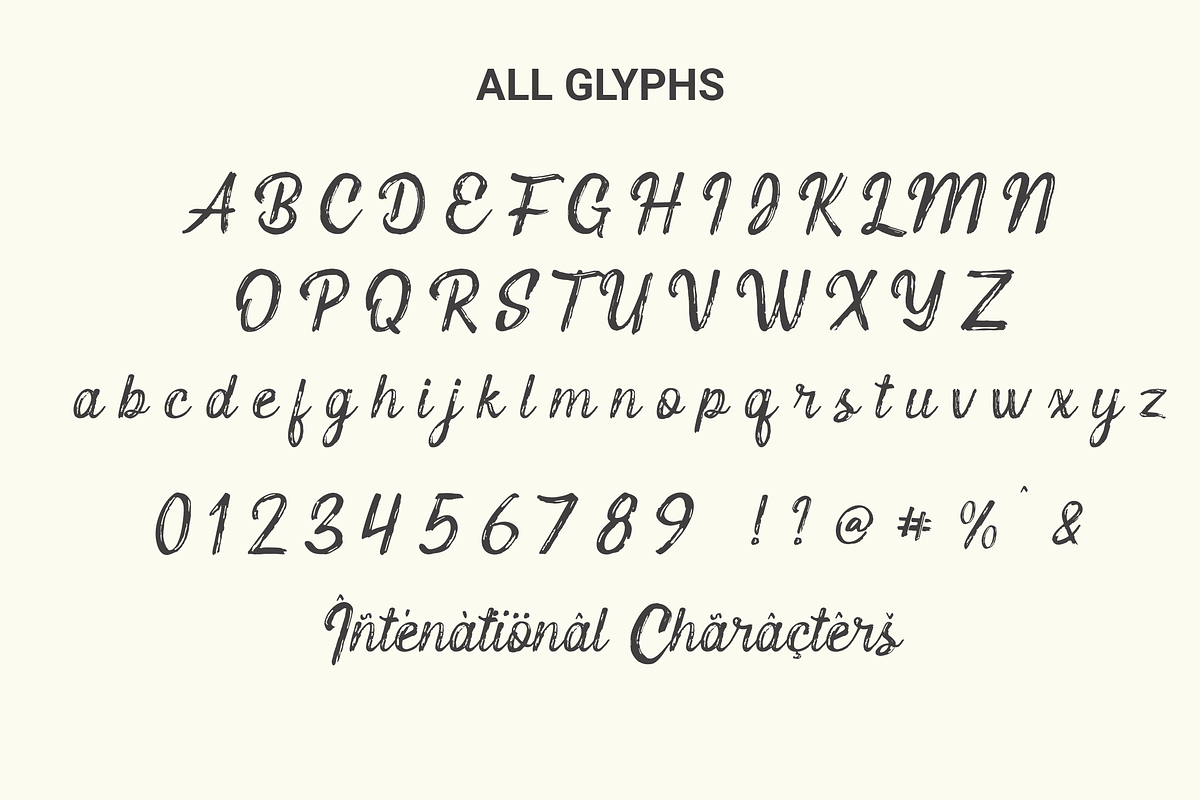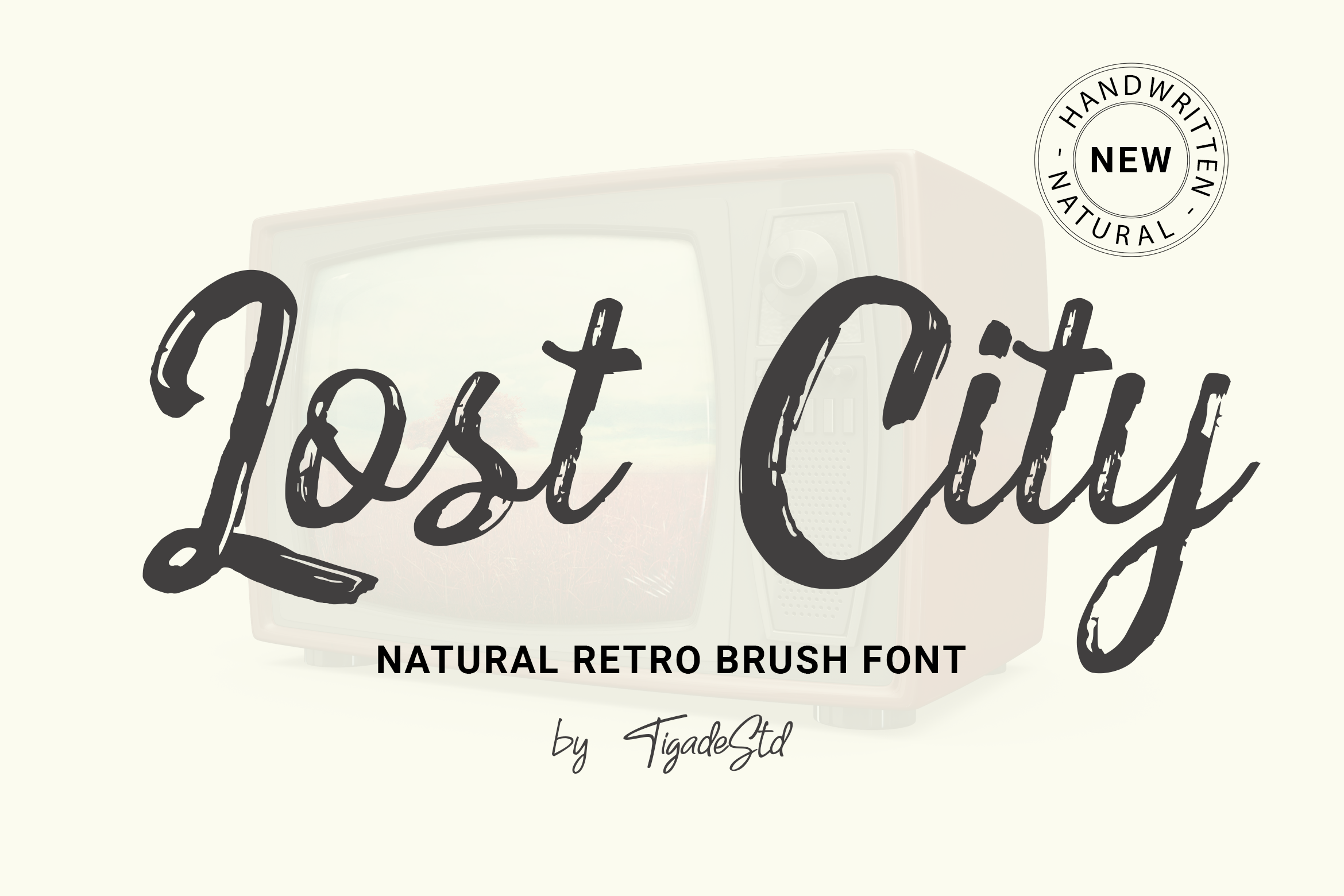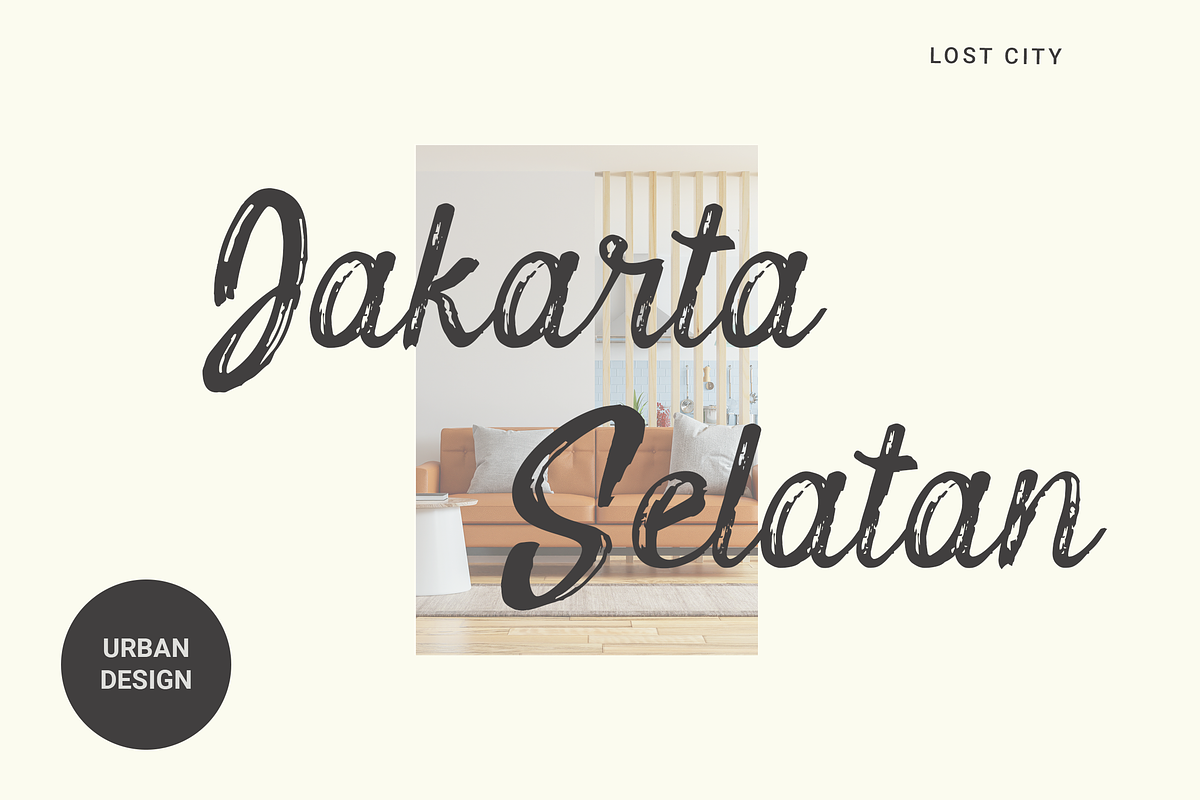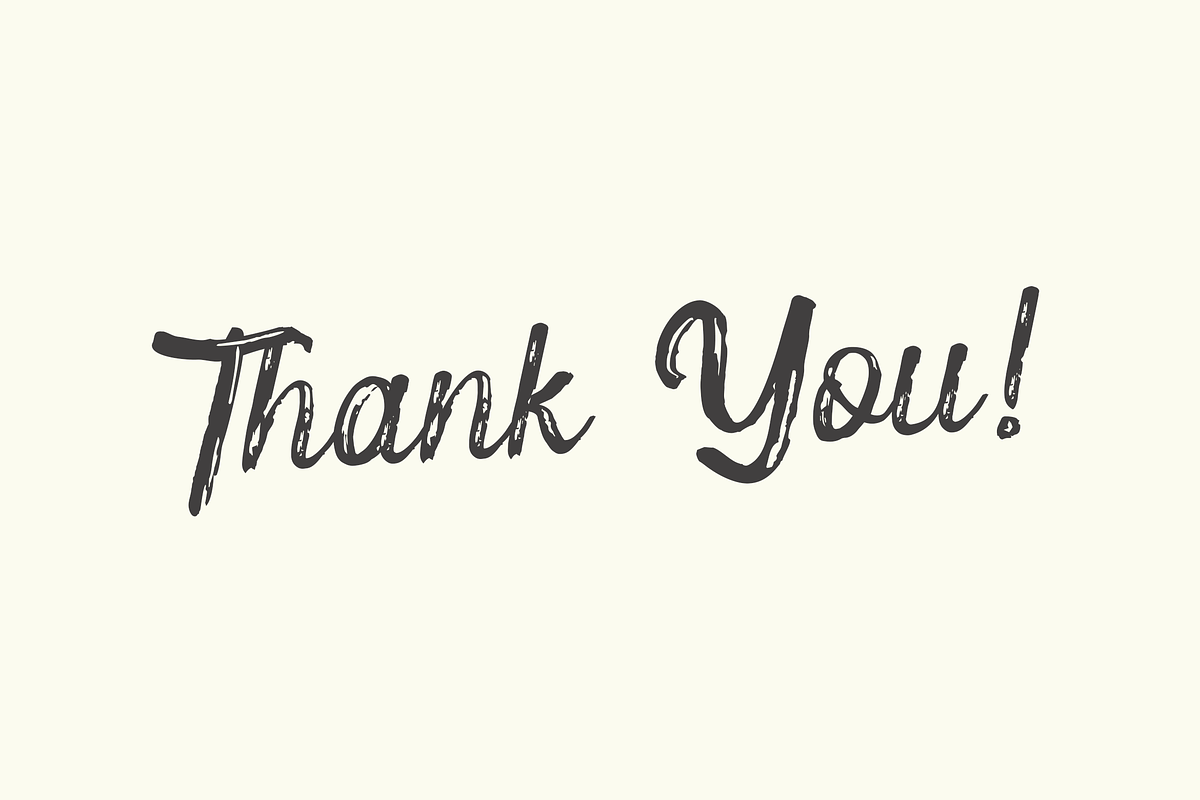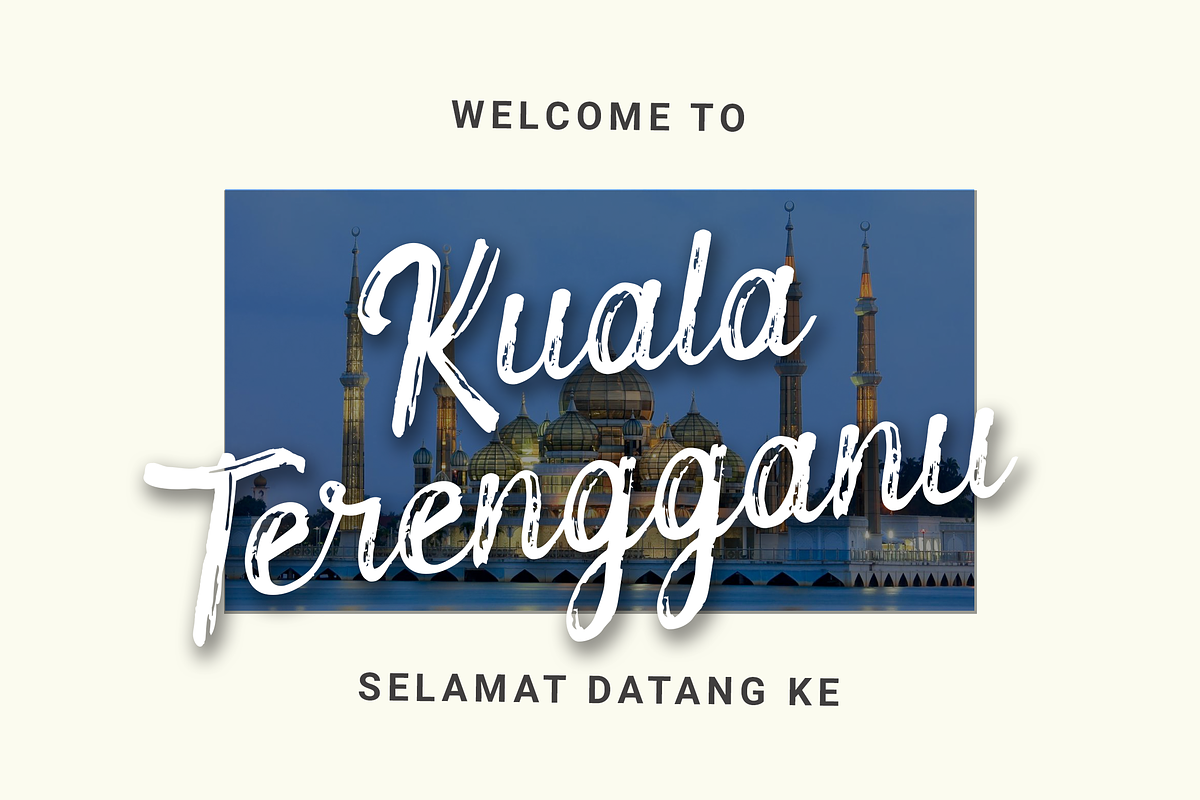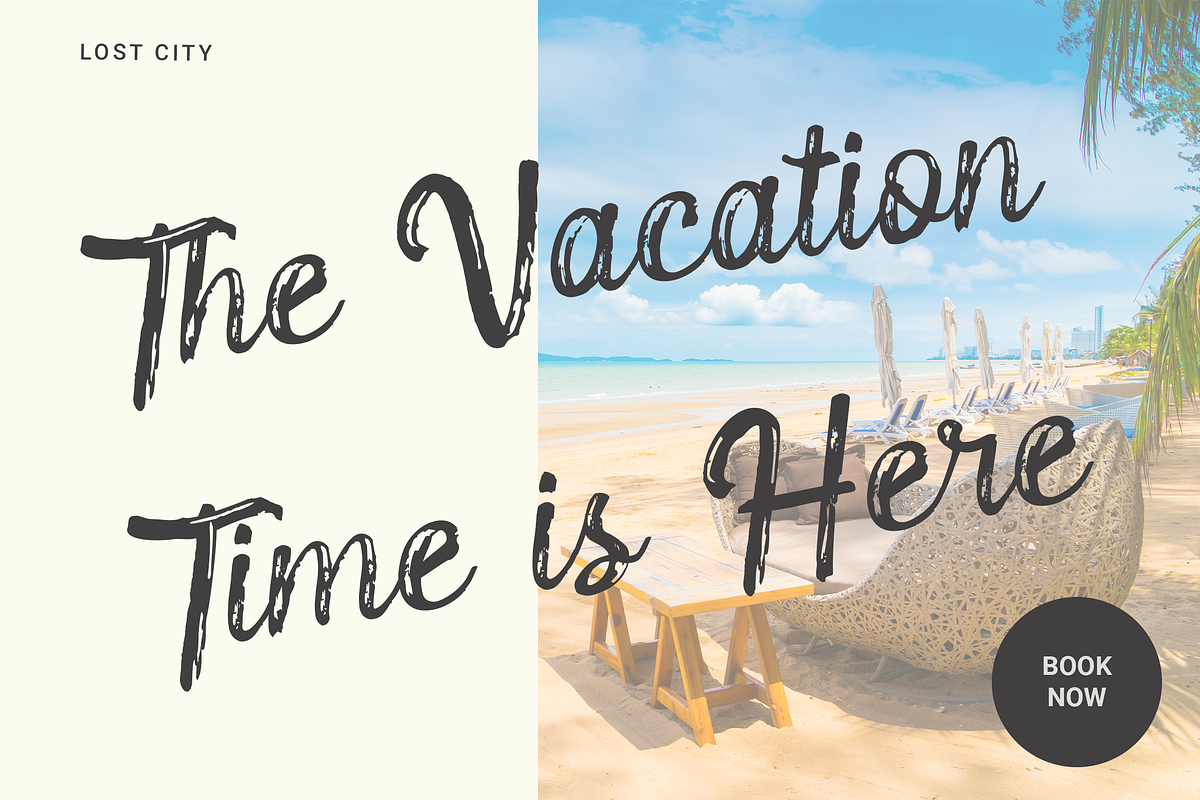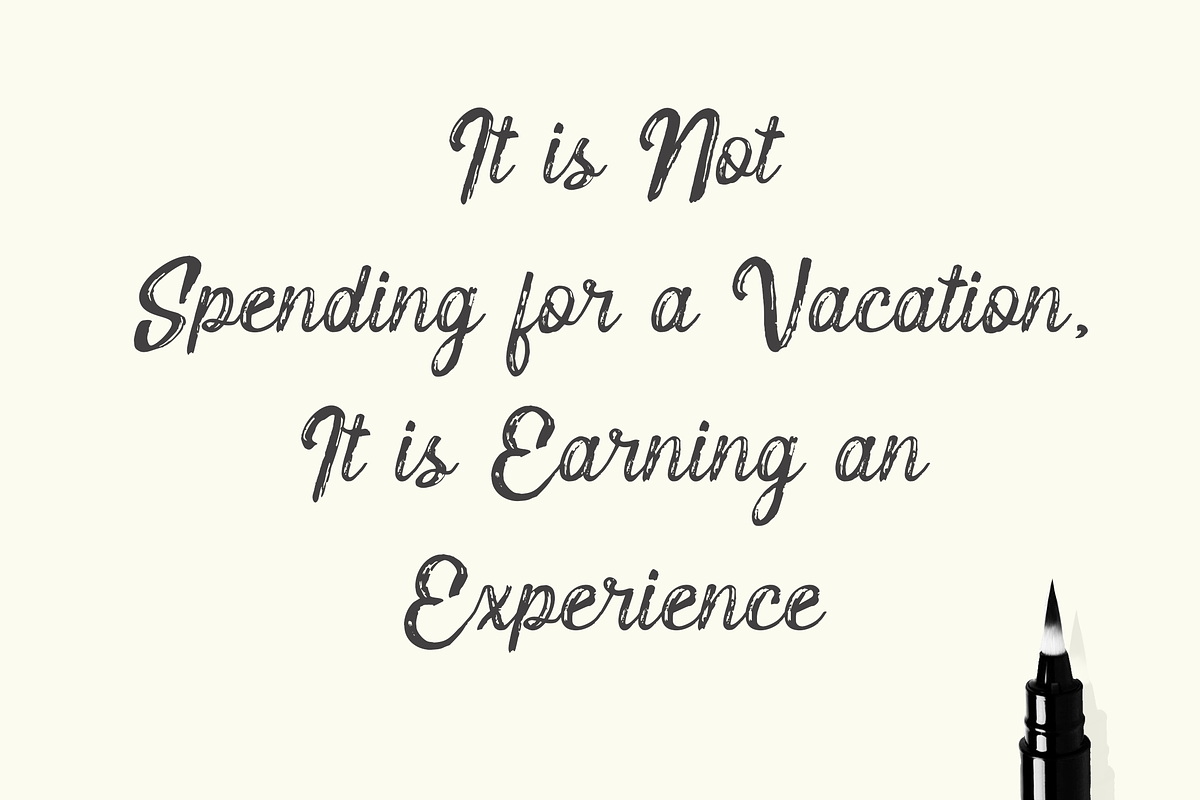
Lost City | Natural Retro Brush Font
Lost City is a Natural Retro Brush Font. It is a handwritten which can beautifully enhance your design and product with the feel of retro. It's perfect for creating quotes, greeting cards, branding, promotion, advertisements (hello creative people!).
This is a complete set comes with the International Characters. Enjoy!